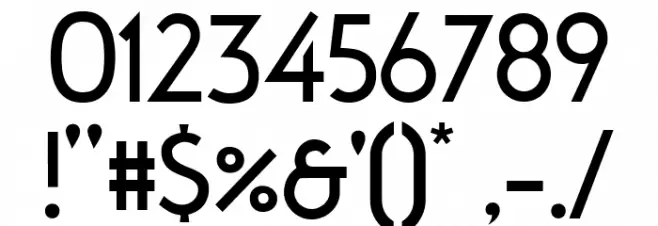
FabrikNormal Font
FabrikNormal Description
This font features a clean and modern sans-serif design, characterized by its geometric shapes and uniform stroke widths. The uppercase letters are bold and striking, while the lowercase letters maintain a consistent and harmonious appearance. The numerals are clear and easy to read, making them suitable for various applications. The special characters are well-integrated, maintaining the overall aesthetic of the font. Its simplicity and clarity make it versatile for both digital and print media.
A modern, geometric sans-serif font with clean lines and uniform strokes from Uncategorized fonts.
- Proposed Projects: Ideal for branding, advertising, web design, and editorial layouts due to its clarity and modern appeal.